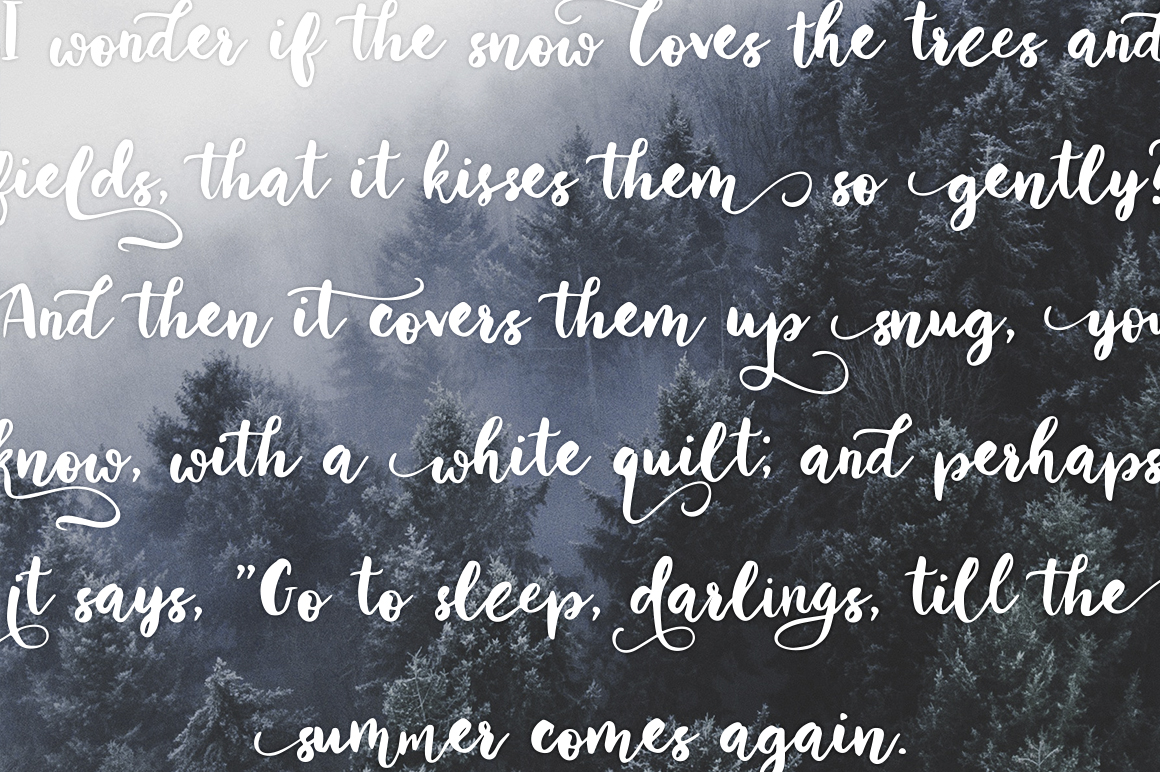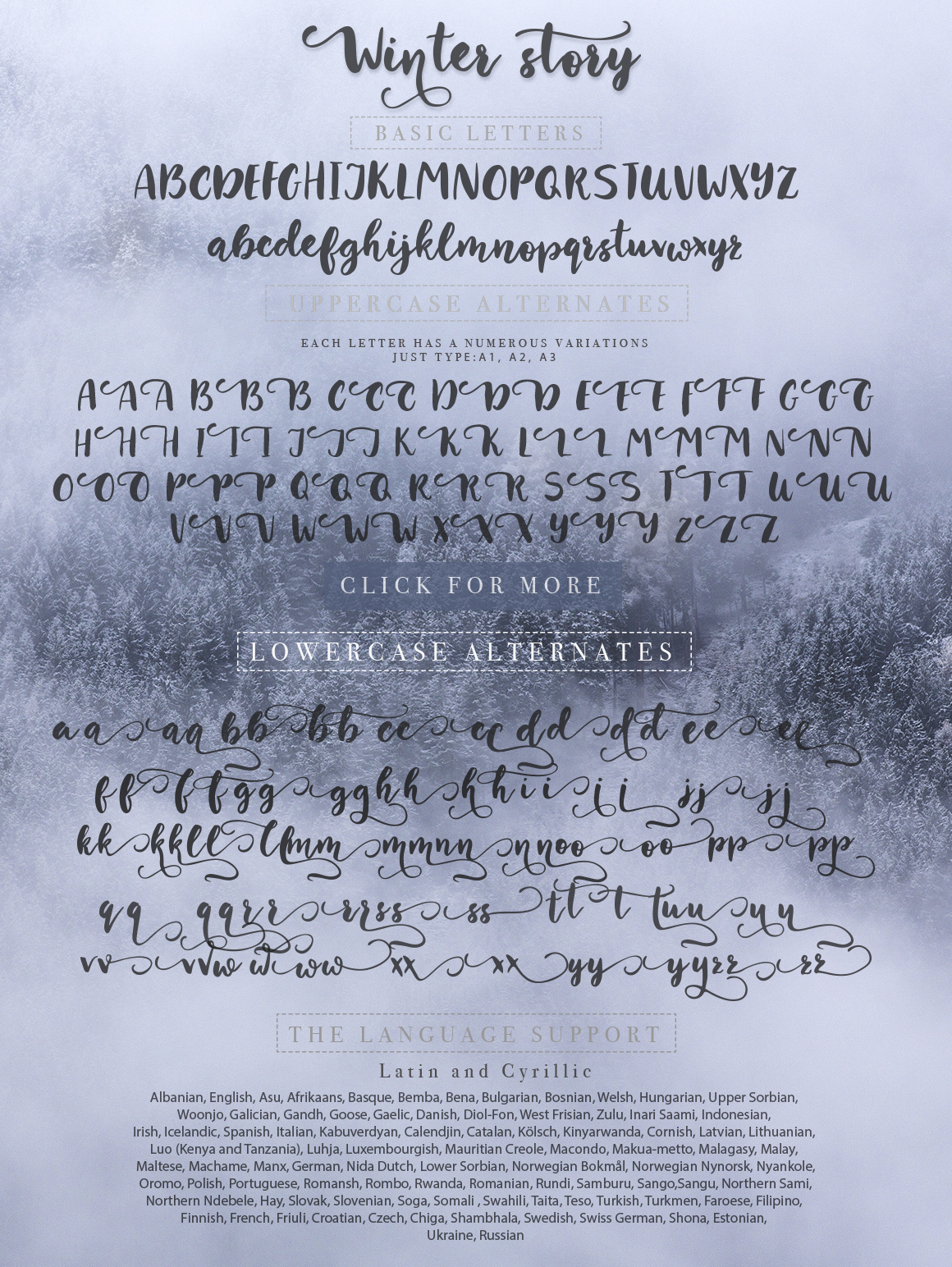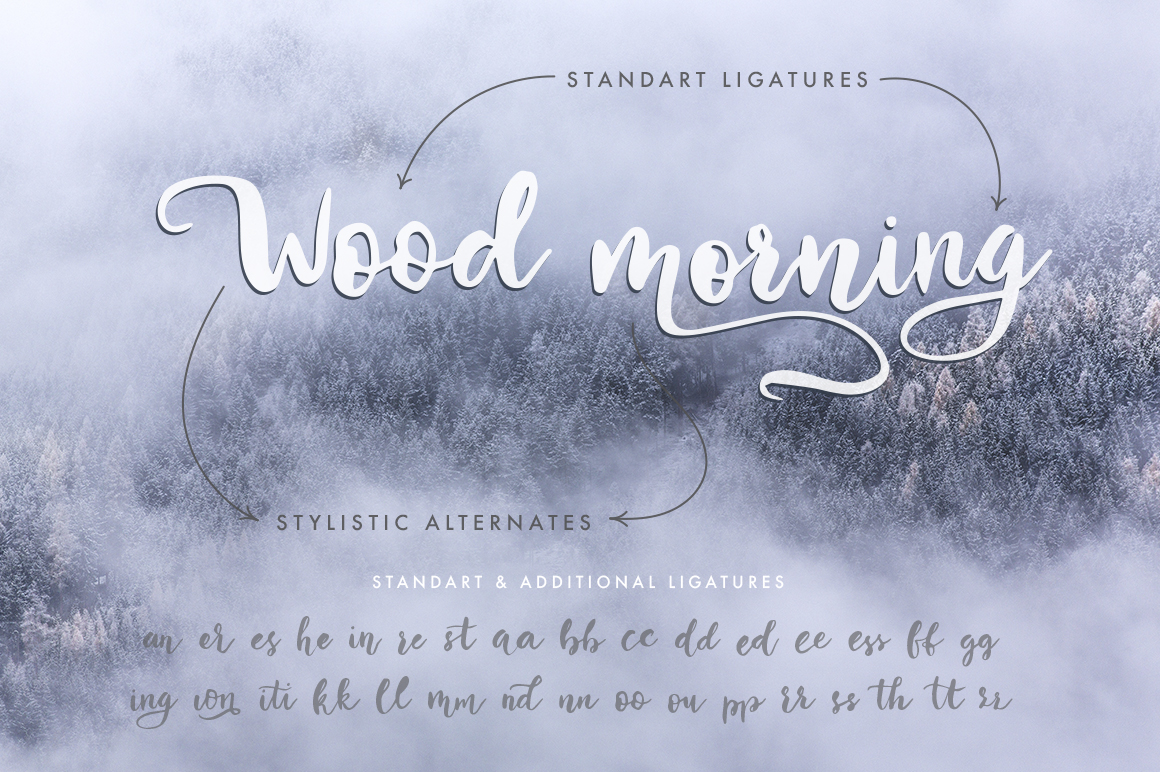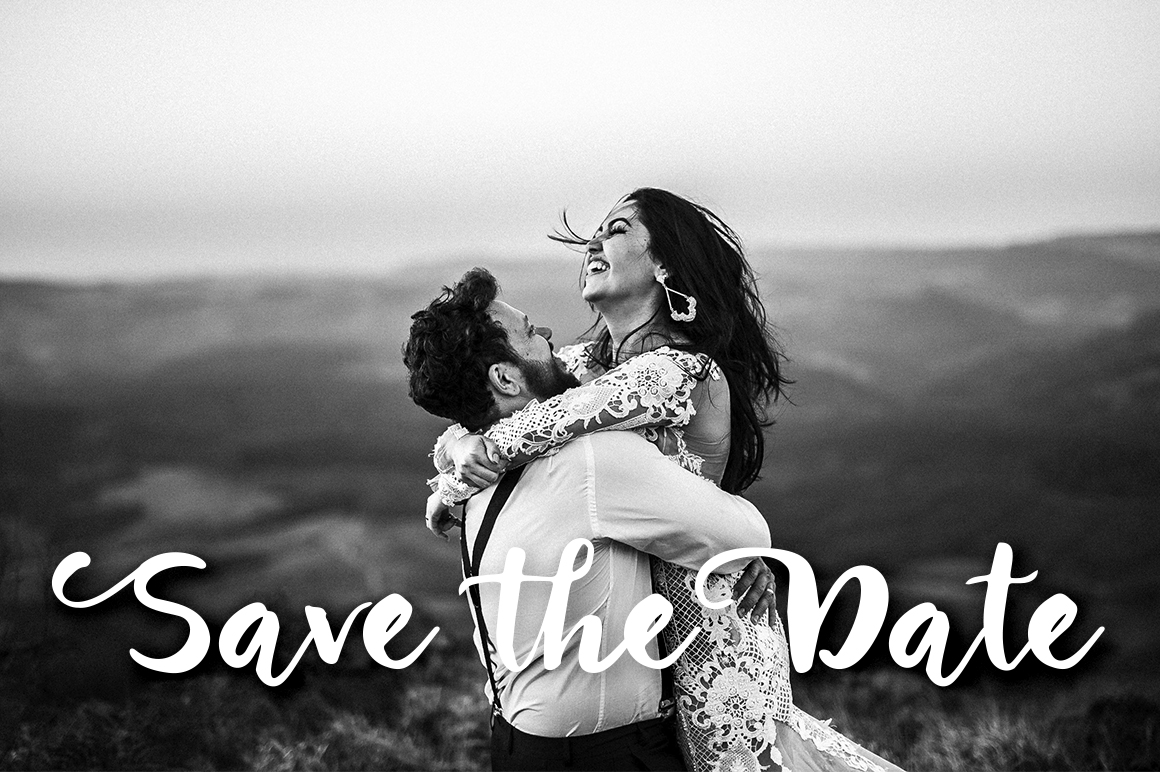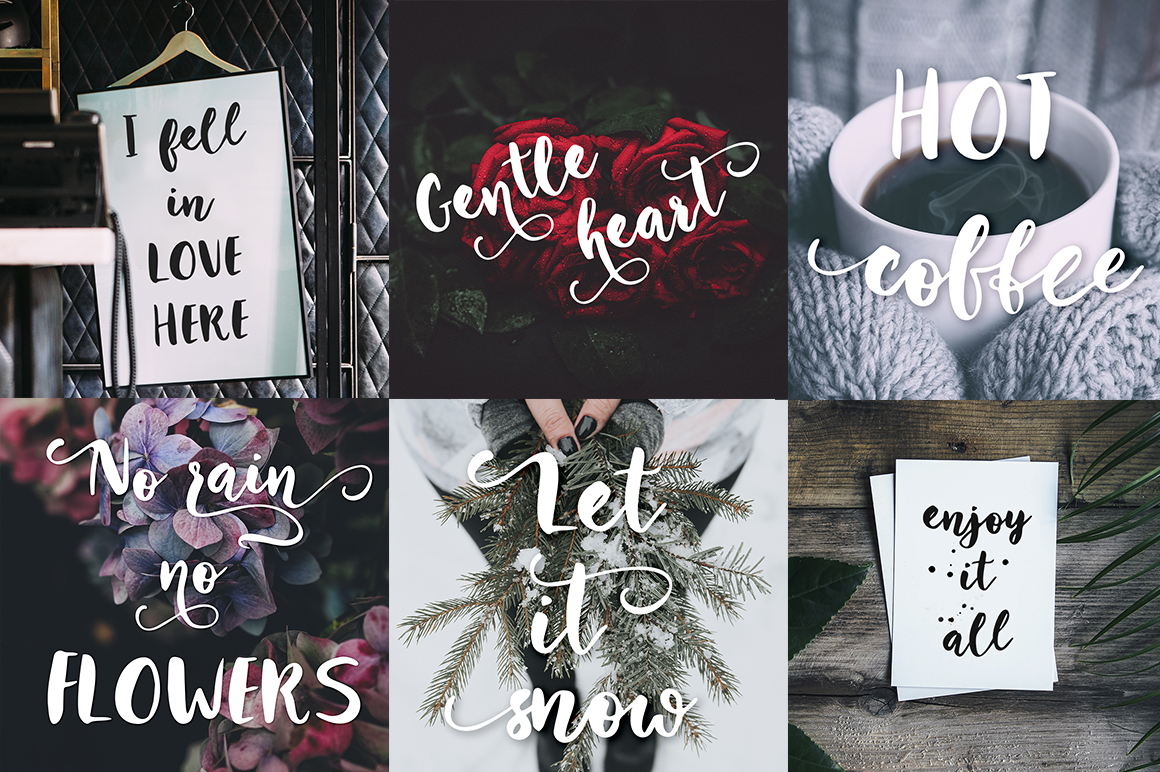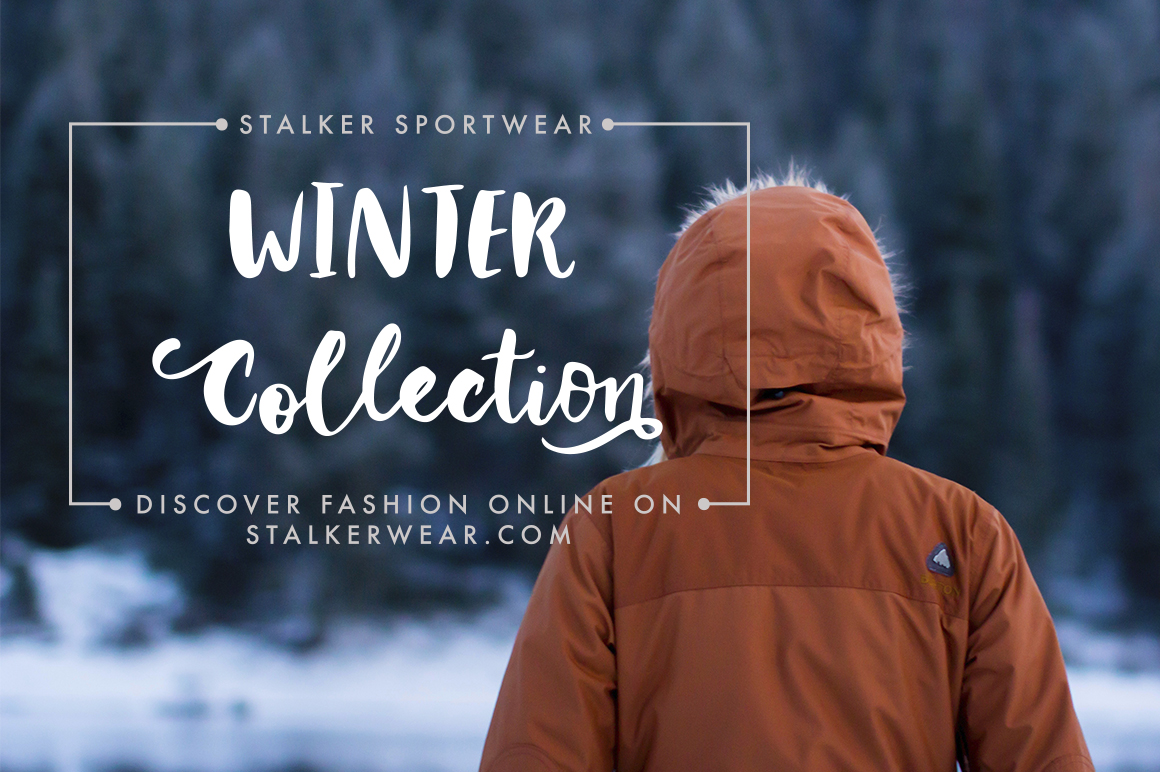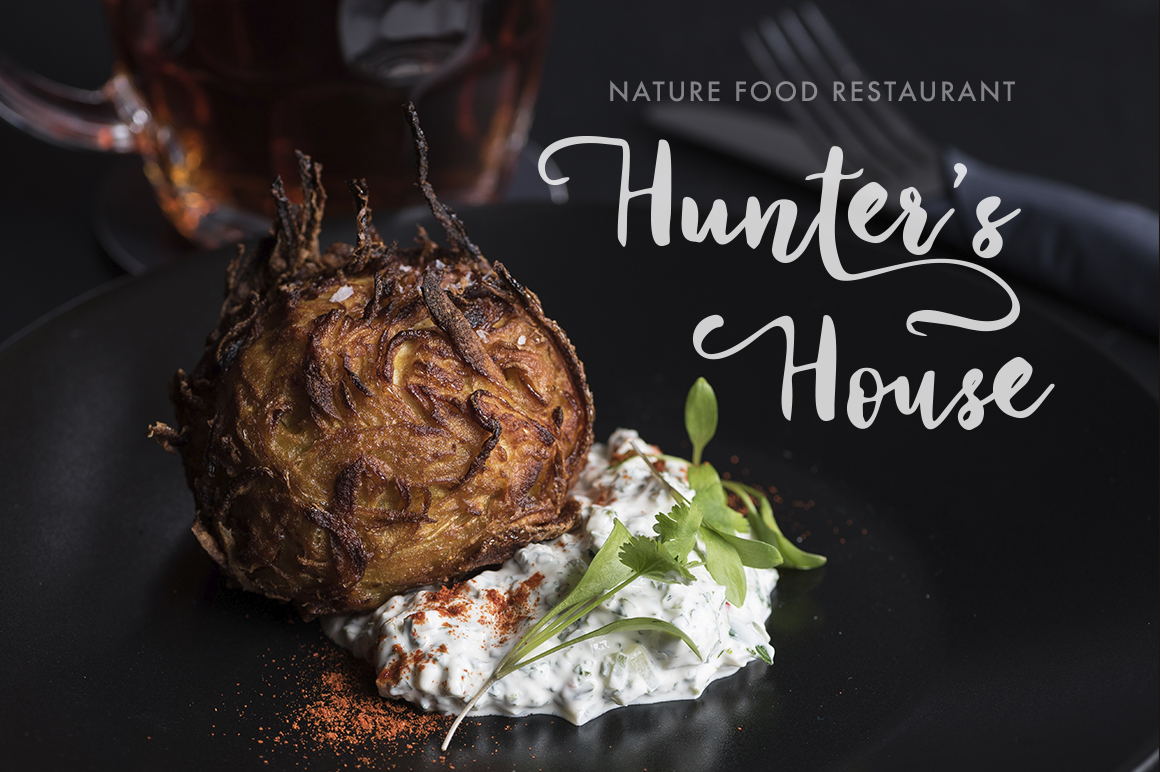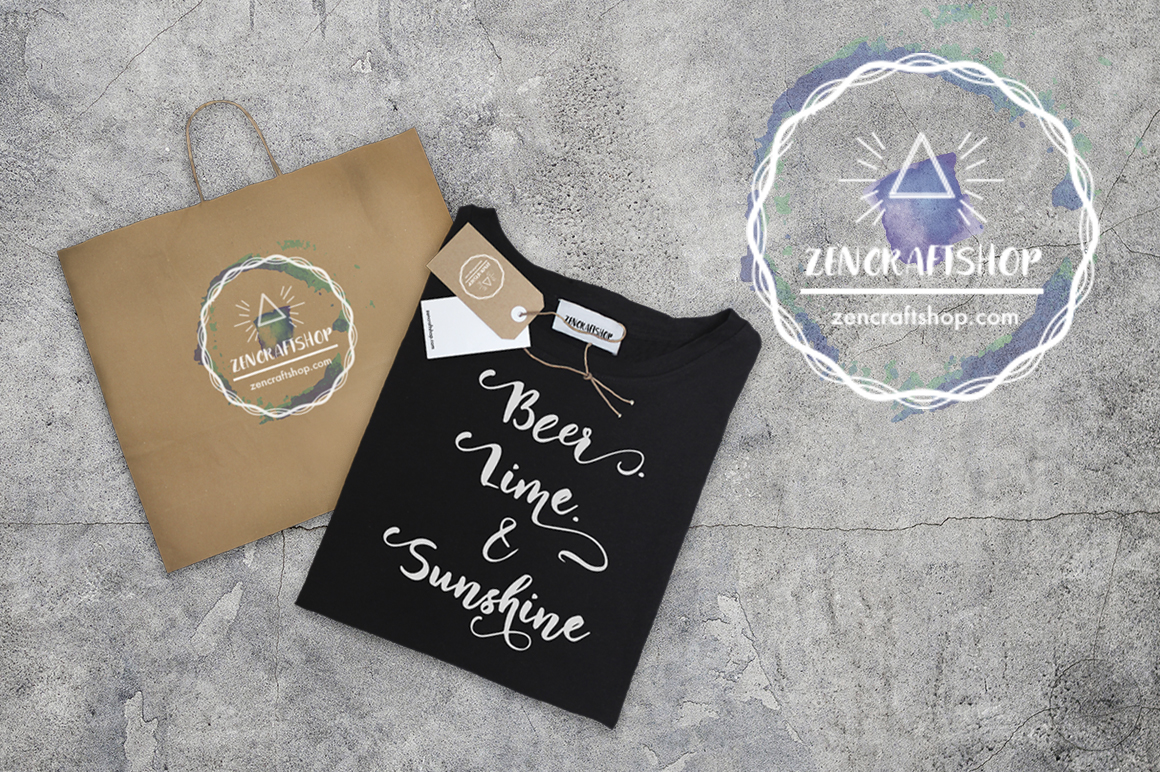
Winter Story Font
About Winter Story Font
Winter Story is a beautiful script font with a unique, bouncy character. This font is stunning and has a wintery, introspective vibe.